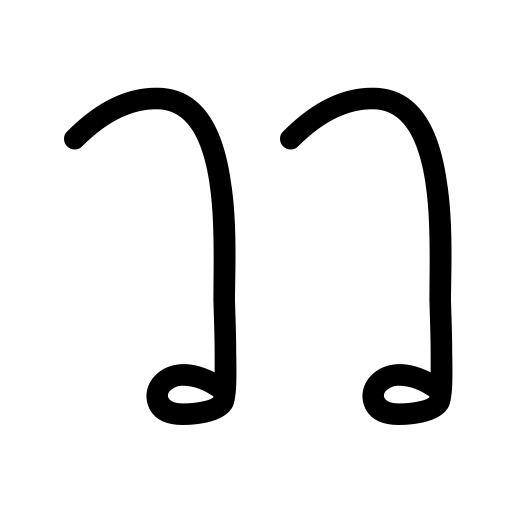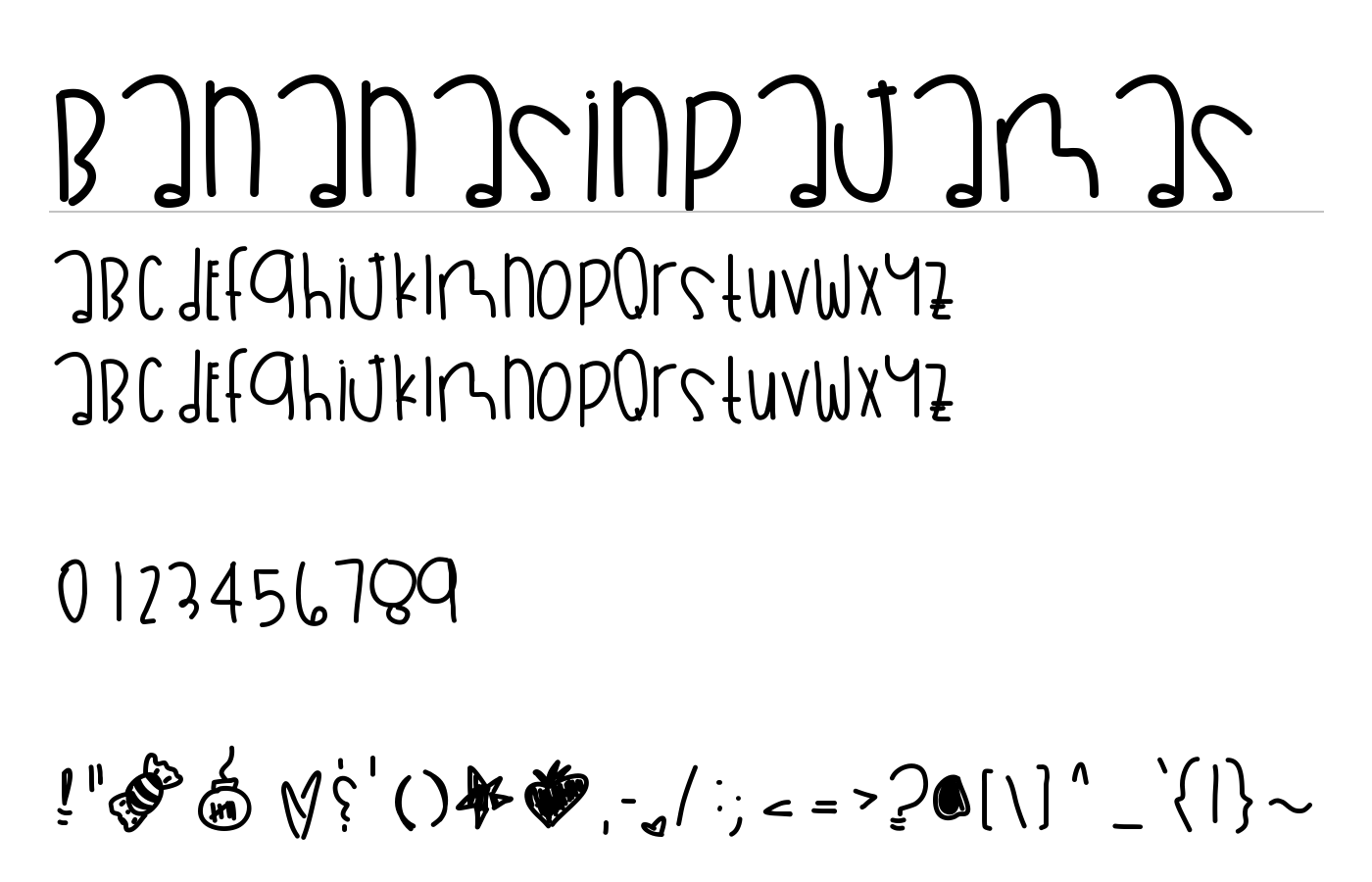
BananasInPajamas is a playful, hand-drawn sans serif font with a whimsical and casual feel. Its thin, irregular strokes and quirky letter shapes give it a childlike charm, making it ideal for fun, informal designs such as kids’ materials, party invitations, or creative branding. This font works best in settings that call for a friendly, lighthearted tone rather than formal or professional use.
BananasInPajamas Font
About BananasInPajamas Font